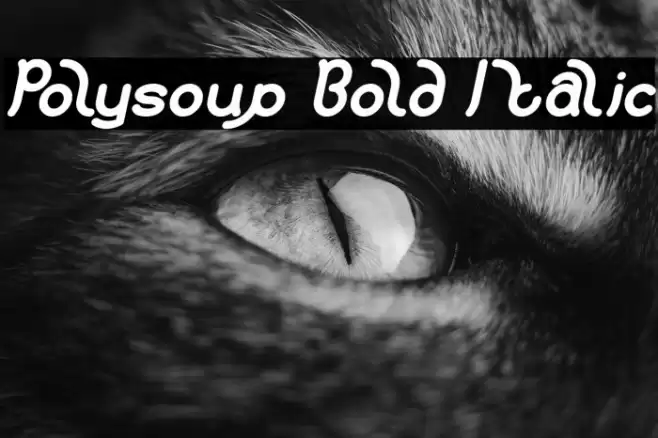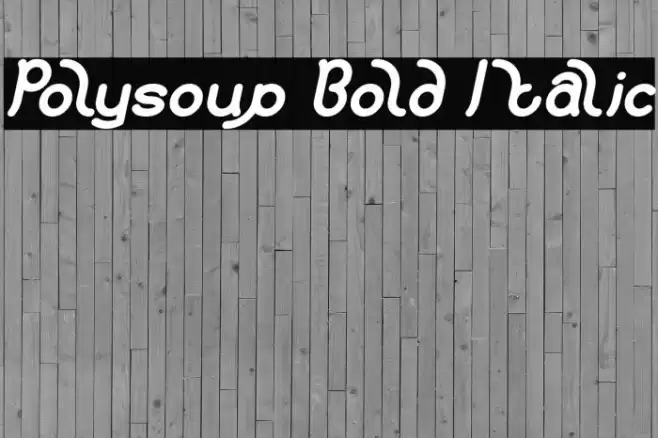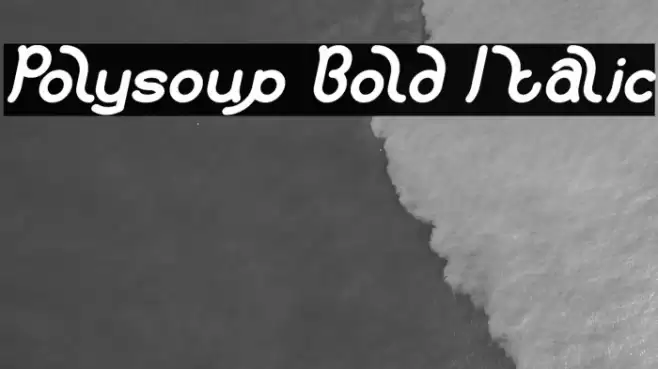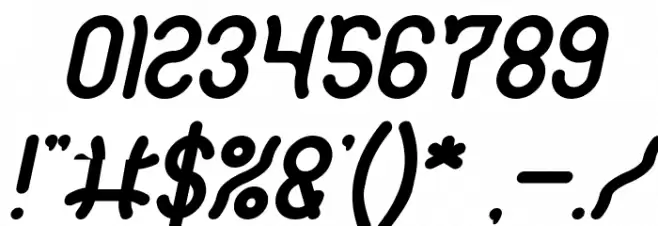
Polysoup Bold Italic Font
Polysoup Bold Italic Description
This font features a bold and italic style with a playful, rounded appearance. The characters are thick and have a smooth, flowing quality that gives them a dynamic and energetic feel. The uppercase and lowercase letters maintain a consistent style, with a slight slant that enhances the italic effect. Numbers and special characters are equally bold, ensuring readability and uniformity across all elements. The font's design is modern and eye-catching, making it suitable for creative and informal applications.
A bold, italic, and playful font with rounded, flowing characters from Uncategorized fonts.